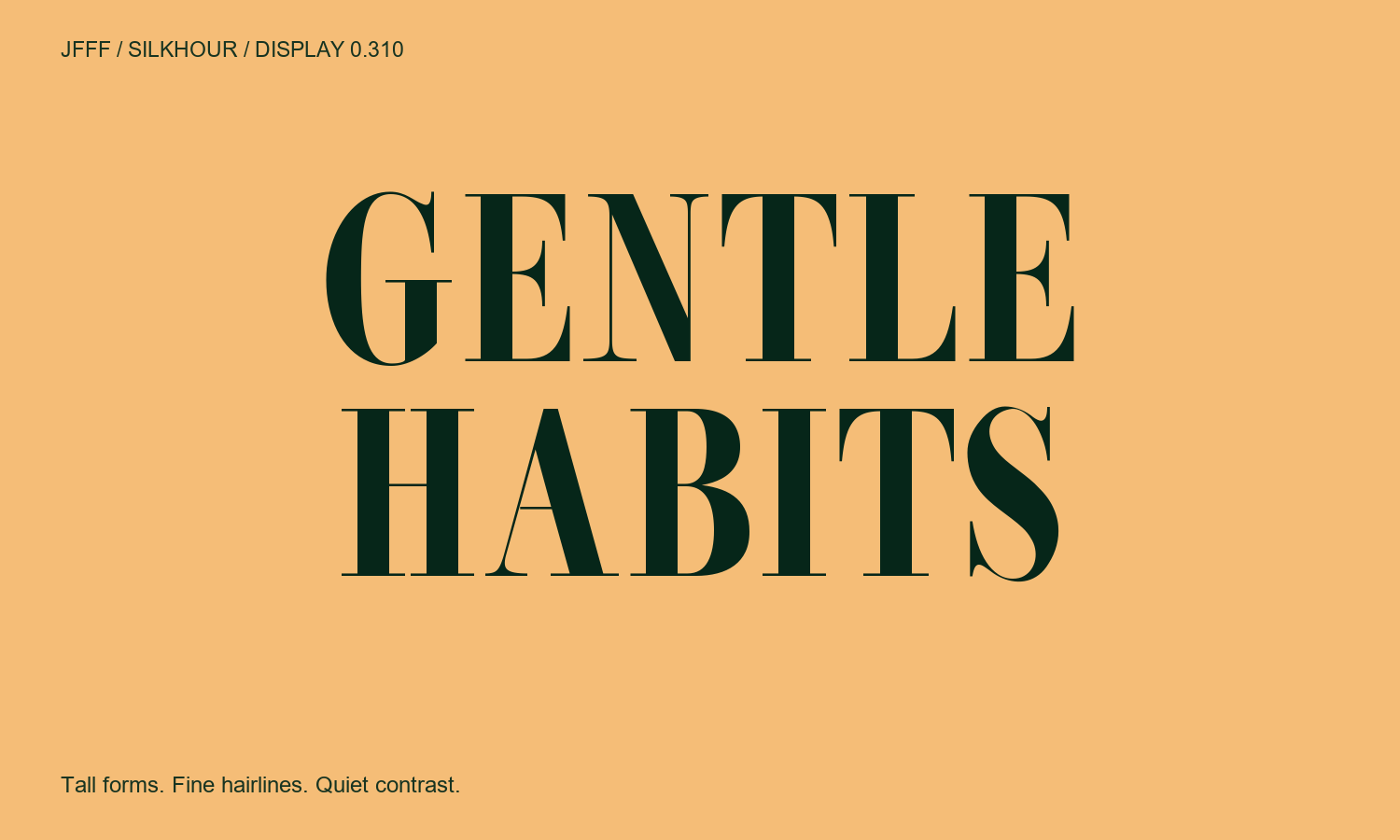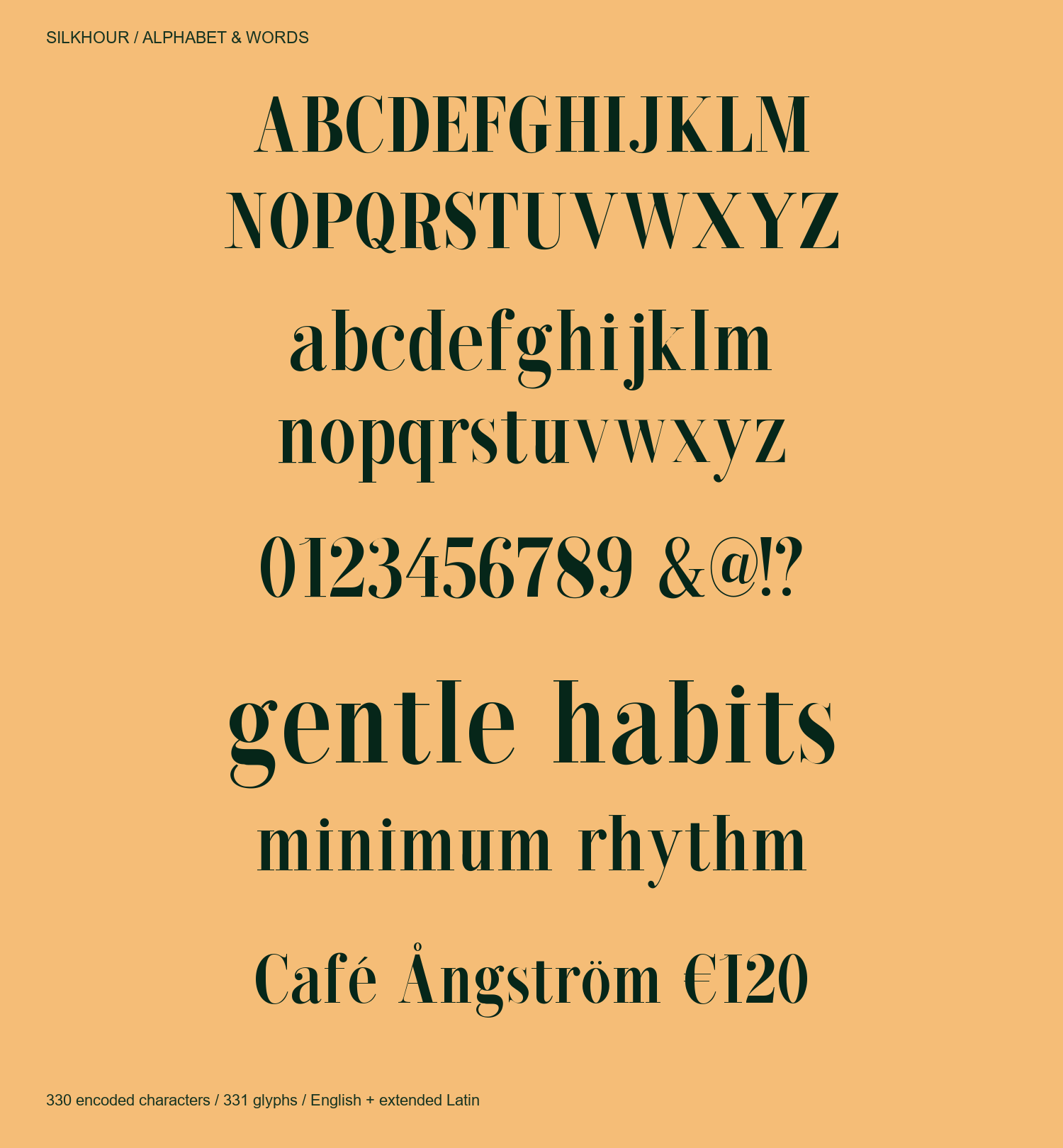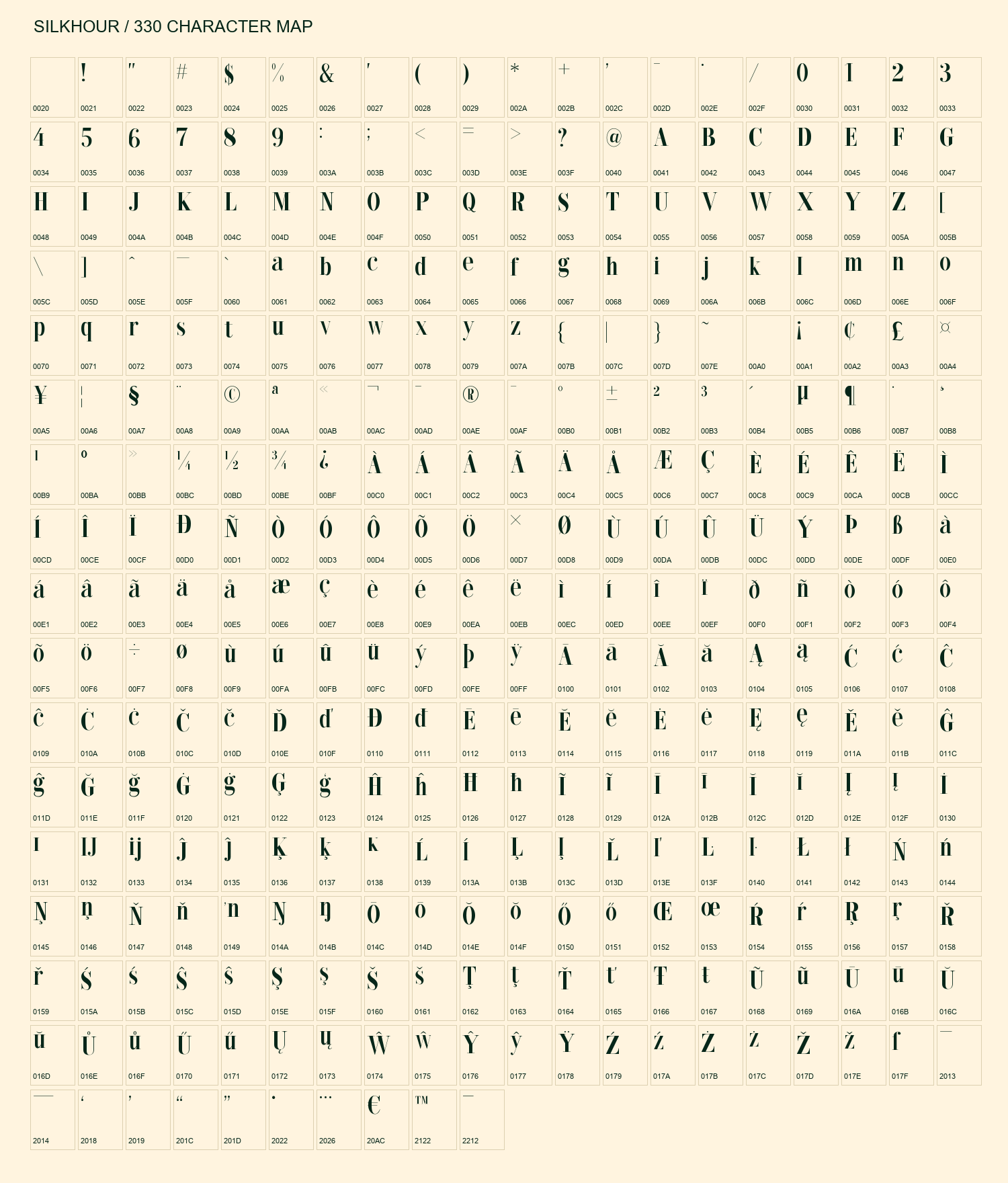
Silkhour: GENTLE HABITS, high-contrast display serif.
Silkhour — tall proportions, sculpted curves and fine hairline serifs. A high-contrast display face for editorial headlines, posters and identity work. Version 0.310 design preview includes revised ligatures, connected marks, character-specific spacing and expanded kerning. 330 encoded characters / 331 glyphs: uppercase, lowercase, numbers, Latin-1, Latin Extended-A and selected symbols. Best used for large headlines, starting around 64 px. No Hangul or independent combining marks. Full cross-browser and all-size validation remains in progress. Free under SIL Open Font License 1.1.